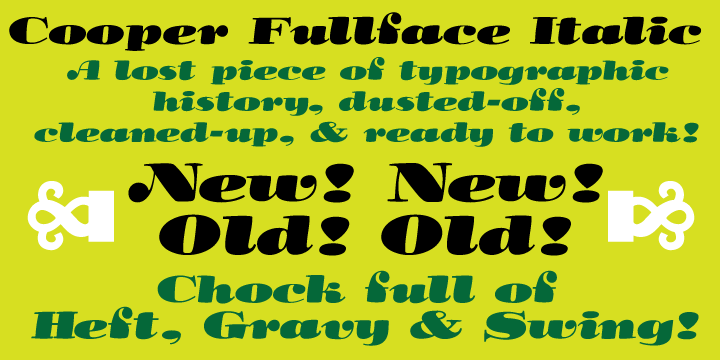
This typeface is the definitive version of Oswald Bruce Cooper’s lost typeface Cooper Fullface Italic. More…
At the end of 1927, Oswald Bruce Cooper yearned to create a heavy “modern” face- akin to Broadway and other display types in height and proportion, but more nuanced while being a dense, black type. The Barnhart Brothers & Spindler foundry, for whom Cooper had designed a number of typefaces, saw the potential of the typeface as a big seller. Richard McArther, General Manager of the foundry, referred to it as “the hotsy stuff”, though he was highly critical of a number of characters in the original design. He requested a successive number of modifications, including the addition of Dwiggins-inspired serifs to the face to make it stand apart from similarly-weighted typefaces then on the market. He wanted to imbue the face with a considerable amount of "old-timey" flavor in order to impart a sense of originality to the face and have it sell across both Modern and Bodoni/Didot market segments.
The resulting typeface was called Cooper Fullface, a jaunty and swollen caricature of a Didone with great potential for display advertising work. The final form of the face was a regulated and consistent balance of cartoonishness and earnest visual braggadocio, the bouncy, circus fairway-like swing of the original drawings of the letters taken down considerably and figures redrawn and redrawn for maximum readability.
A specimen sheet was mailed out in 1929, and generated moderate sales, but too late- Barnhart Brothers & Spindler closed its foundry division shortly thereafter as part of ATF’s corporate roll-up of manufacturing. The American Type Founders continued to produce the face and sell it at a decent pace, renaming it Cooper Modern.
Cooper designed a matching italic for Cooper Fullface, but it was never released. The BB&S foundry closure resulted in the foundry equipment being shipped to New Jersey a few weeks shy of the typeface’s completion. It is unfortunate, as the accompanying italic is perhaps Cooper’s masterpiece, a lively Bodoni-esque italic with more than a bit of influence from 19th Century display types, particularly in the treatment of the ball serifs on the uppercase “A”, “J”, “M”, and “N”. Cooper Fullface Italic stands as the until-now missing bookend to Cooper’s career as a type designer.
This digital release is the revival of that lost Cooper typeface, Cooper Fullface Italic. Within are two typefaces- Cooper Fullface Italic and Cooper Fullface Italic Fancy. The two faces span the range of Cooper’s original drawings- the Fancy typeface utilizing a number of alternate characters.
These two typefaces are the result of researching Cooper’s original drawings and series of engraved proofs for both typefaces. The typefaces include the original ligatures, original Oz Cooper ornaments, fancy swash characters, and a range of punctuation and diacritics, et al, that fill out a full character set. The typefaces have been lovingly kerned for the smoothest result in text setting.